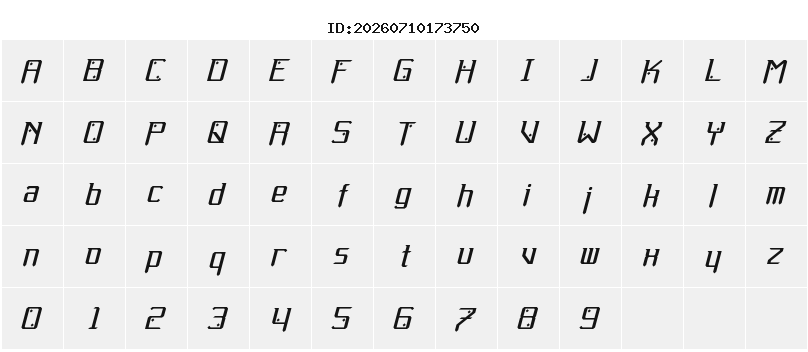
Gemcut Preview
• Font Name: Gemcut
• Full Font Name: Gemcut Italic
• Designer: Neale Davidson
• Manufacturer: Pixel Sagas
About Gemcut.otf
Gemcut.otf is a modern, elegant sans-serif font designed for ultimate readability and visual harmony. Perfect for branding, headlines, web design, and print materials.